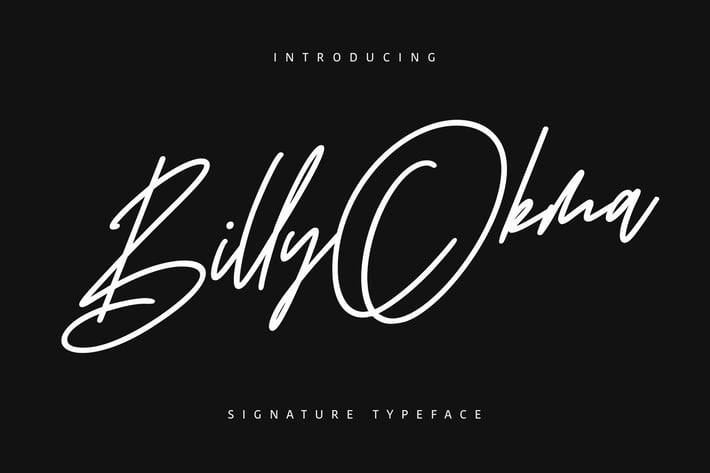
Billy Okma Signature Font
Give your designs an authentic handcrafted feel. “Billy Okma Signature” is perfectly suited to stationery, logos and much more.